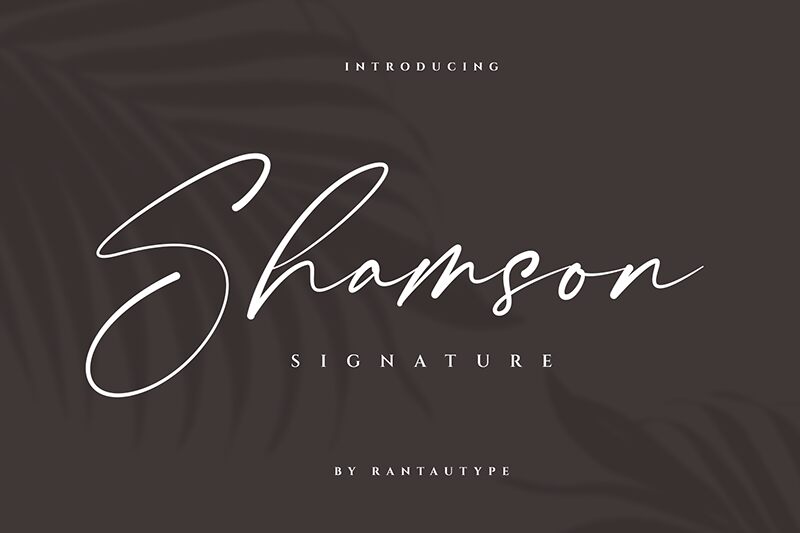
Shamson Signature
Shamson Signature font by RantautypeStudio is a light handwritten typeface with elegant flowing lines and a refined cursive script appearance. Its modern touch is combined with a signature-style design, creating a balanced, neat presence that subtly captures the viewer’s attention. Each letter seems perfectly connected as if drawn in one stroke.
This stylish free handwritten font will be of extreme value across branding works such as label design, insignia creation, and logotypes. Printed paper products like menus, gift cards, brochures, invites and envelopes are also interesting ideas worthy of experimentation. Similarly unpublished digital interfaces such as websites or social media posts can benefit from this versatile resource.